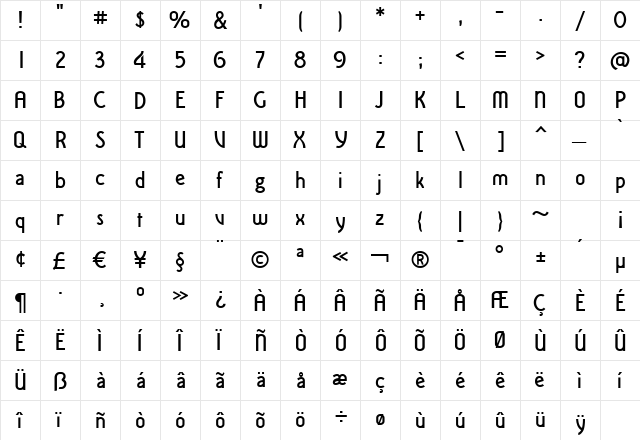
Iru1Medium Regular Font Preview
Iru1Medium Regular
Design Context for Iru1Medium Typeface
Iru1Medium is a composed and adaptable typeface that performs quietly and consistently across a wide range of design contexts.